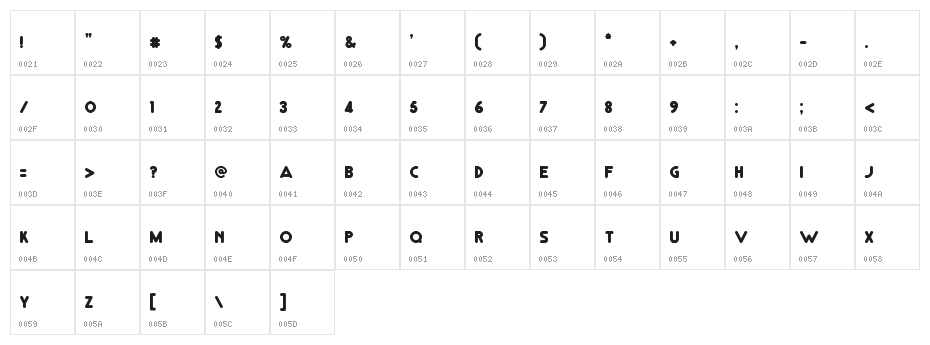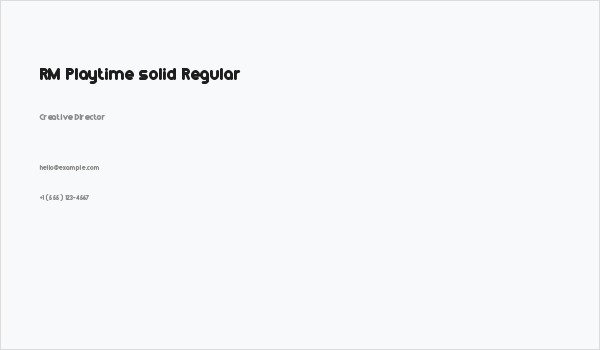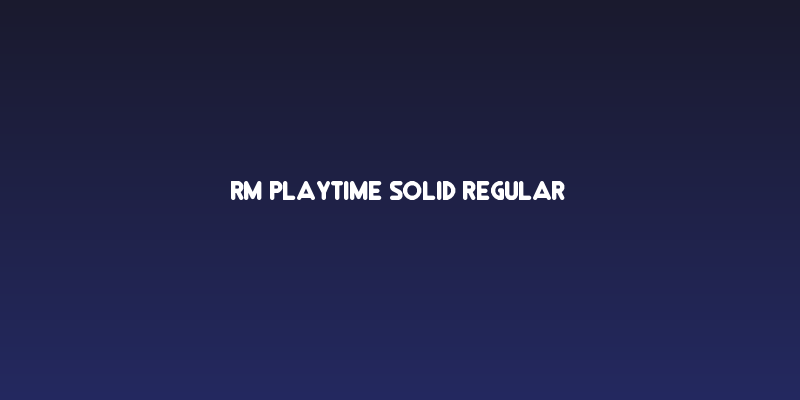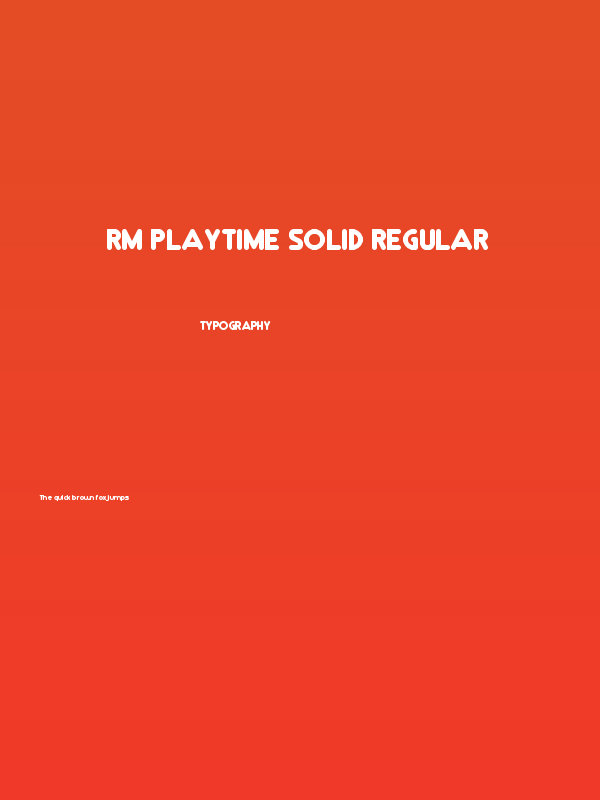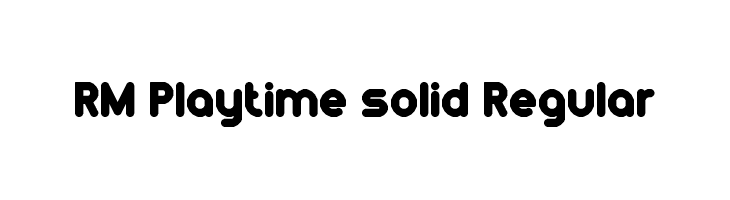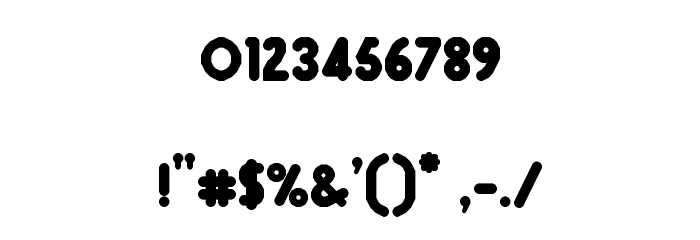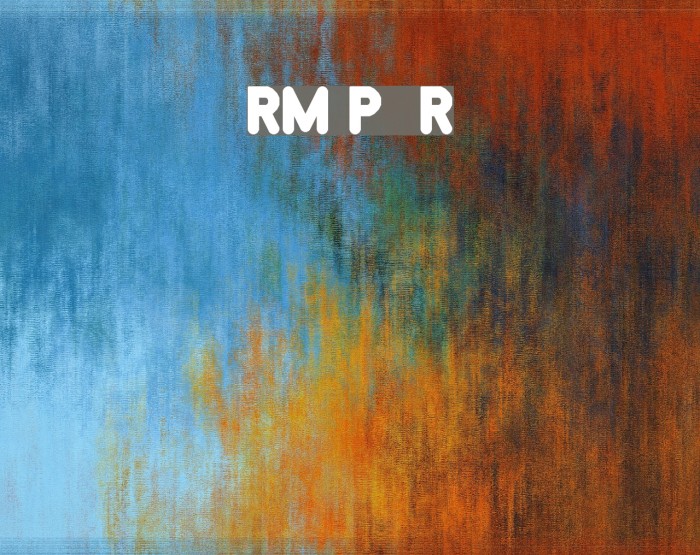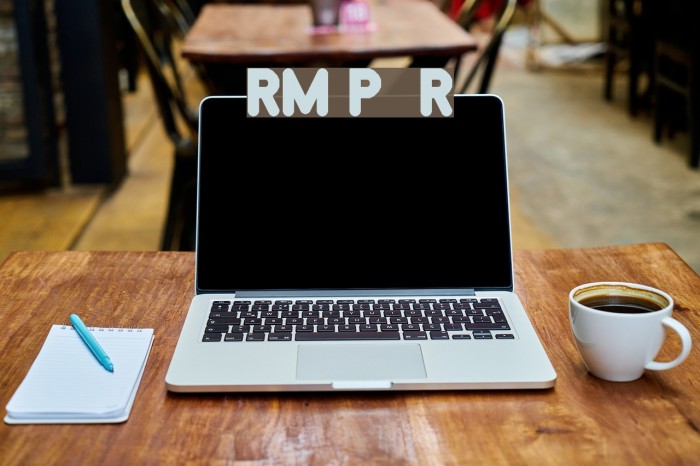
RM Playtime solid Regular Font
RM Playtime solid Regular Description
This playful and rounded font features bold, smooth curves and a solid structure, making it ideal for creating a friendly and approachable aesthetic. The uppercase and lowercase letters maintain a consistent width, contributing to a balanced and cohesive appearance. The numbers and special characters are designed with the same playful style, ensuring uniformity across all text elements. The font's rounded edges and thick strokes give it a modern yet whimsical feel, suitable for projects that require a touch of fun and creativity.
| Overall Style | Modern, Whimsical |
| Use Case | Headlines, Logos, Branding |
| Proposed Projects | Ideal for children's books, playful branding, toy packaging, and educational materials. |